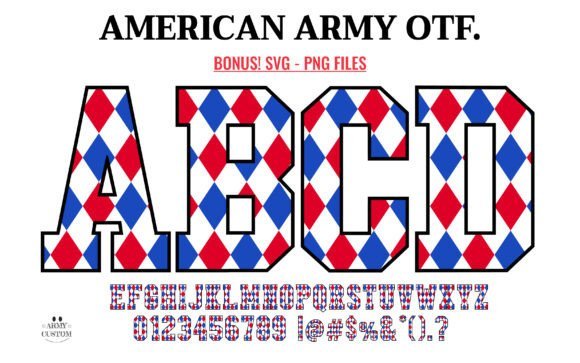
Get Ready to Celebrate with the American 4th of July Font
As a designer, have you ever struggled to capture the essence of a patriotic celebration in your projects? You know, that feeling when you’re brainstorming ideas for a 4th of July party invitation, and you just can’t seem to find the right font to match the excitement and freedom of the American spirit? Well, put down those design tools and take a deep breath, because we’ve got just the thing for you – the American 4th of July Font.
This uniquely designed font is more than just a typeface; it’s a tribute to the heart of the United States, infused with the charm and spirit of American aesthetics. Whether you’re a seasoned designer or just starting out, the American 4th of July Font is sure to bring an unmatched patriotism to your creative projects, making it a valuable addition to any designer’s toolkit.
Key Features of “American 4th of July Font”
- Unique Characteristics: The font features a patriotic theme, with bold and colorful letters that resemble fireworks and American flags.
- Style: The font has a playful and festive style, making it suitable for use in invitations, posters, and other celebratory materials.
Review of American 4th of July Font
Overall, I think the American 4th of July Font is a fun and playful addition to any design project. ✨ It’s perfect for those who want to add a touch of patriotism and celebration to their work.
Here are some things that work well with this font:
- Its bold, block-like letters make it perfect for headlines and titles.
- The use of bright colors and bold shapes creates a festive atmosphere.
- It’s great for designs that require a sense of energy and excitement.
However, there are some limitations to keep in mind:
- The font may be too loud or overwhelming for certain designs, such as those that require subtlety or sophistication.
- It may not be suitable for professional or corporate designs, as it may come across as too casual or playful.
- The font may not be as versatile as other fonts, and may require careful placement to avoid overwhelming the design.
- ⚠️ The font’s boldness may make it difficult to read in certain contexts, such as in small sizes or with low contrast.
Overall, I think the American 4th of July Font is a great choice for those who want to add a fun and festive touch to their designs. Just be sure to use it judiciously and in contexts where it will shine.
The American 4th of July font is ideal for patriotic-themed designs, such as:
– Independence Day invitations and cards
– Patriotic logo designs
– Red, white, and blue-themed graphics and illustrations
For best results, use the American 4th of July font in conjunction with other patriotic-themed graphics and colors, such as red, white, and blue. Experiment with different font sizes and styles to add visual interest to your design.
Alternatives to American 4th of July Font